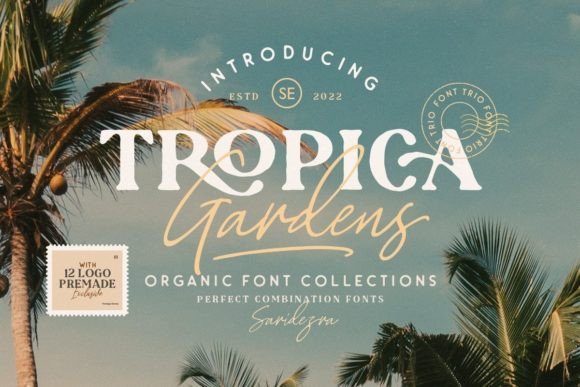
Introducing Tropica Gardens Font - A Visual Symphony of Elegance and Versatility
Immerse yourself in the enchanting allure of Tropica Gardens Font, an exquisite collection of three distinctive fonts that harmoniously blend to create a symphony of visual delight. Let your imagination take flight as you explore the possibilities of this remarkable font family, crafted by the visionary artist saridezra.
Experience the captivating dance of the bold serif font, its graceful strokes evoking a sense of timeless elegance. Watch as your words transform into works of art, exuding sophistication and poise. Witness the playful charm of the rounded sans font, its gentle curves inviting warmth and approachability. Let your message resonate with a friendly touch that draws audiences closer. Discover the authenticity of the signature font, its hand-drawn strokes adding a touch of personal flair to your designs. Feel the pulse of creativity as you weave these fonts together, blending their unique personalities to create a visual tapestry that captivates and inspires.
With Tropica Gardens Font, the boundaries of design dissolve, and your imagination reigns supreme. Whether you're crafting bold headlines that demand attention or weaving enchanting stories with your text, this font family rises to every occasion. Unleash your creativity and transport your audience to a realm of visual enchantment.
The best part? You don't have to embark on a tireless quest for the perfect font pairing - it's already here, meticulously curated within this exceptional package. Experience the convenience of seamless harmony, where each font complements the other, creating a cohesive and visually stunning symphony.
Elevate your designs to new heights with Tropica Gardens Font. Let your words dance across the screen, captivating audiences with their beauty and grace. Embrace the power of this font family and unlock a world of creative possibilities.